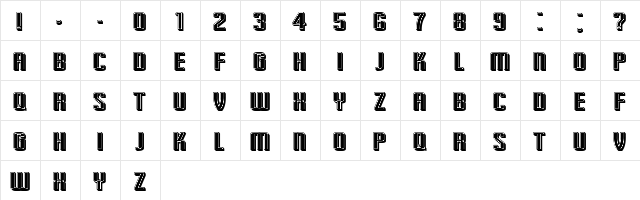
Ruanda Regular
Design Context for Ruanda Typeface
Ruanda is a composed and adaptable typeface that performs quietly and consistently across a wide range of design contexts.